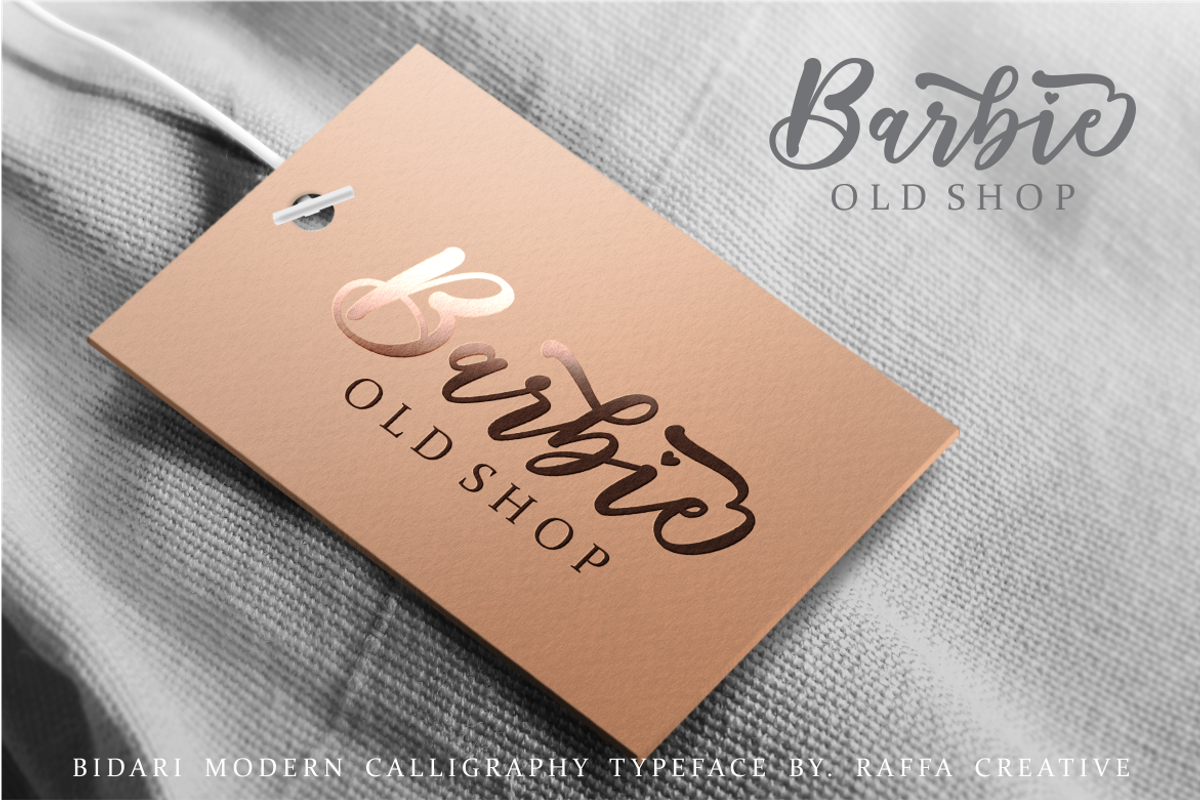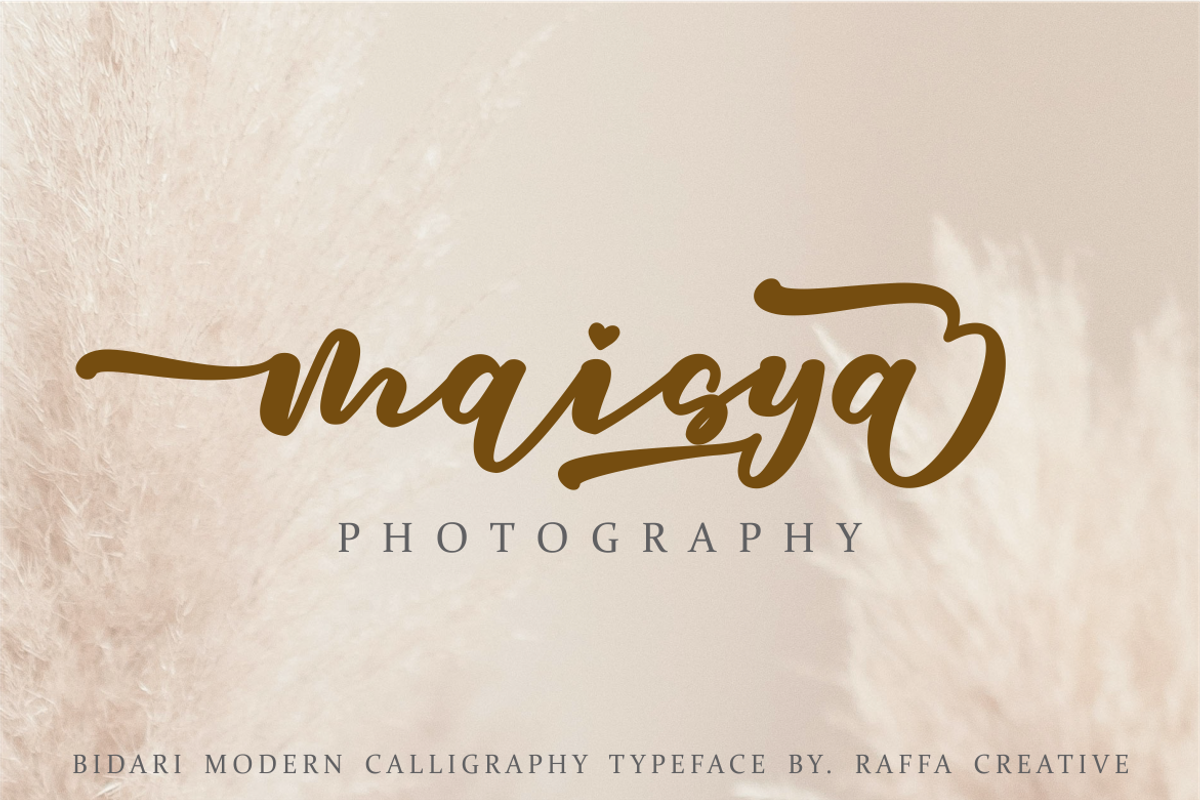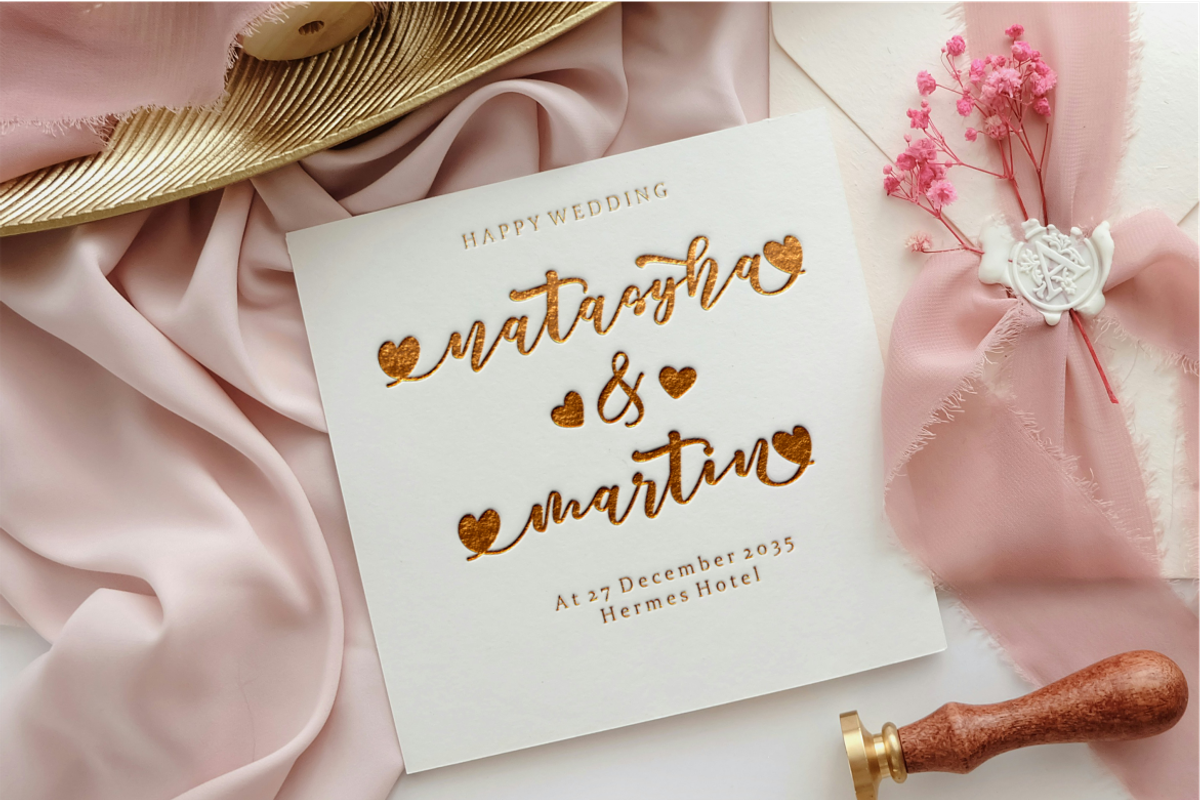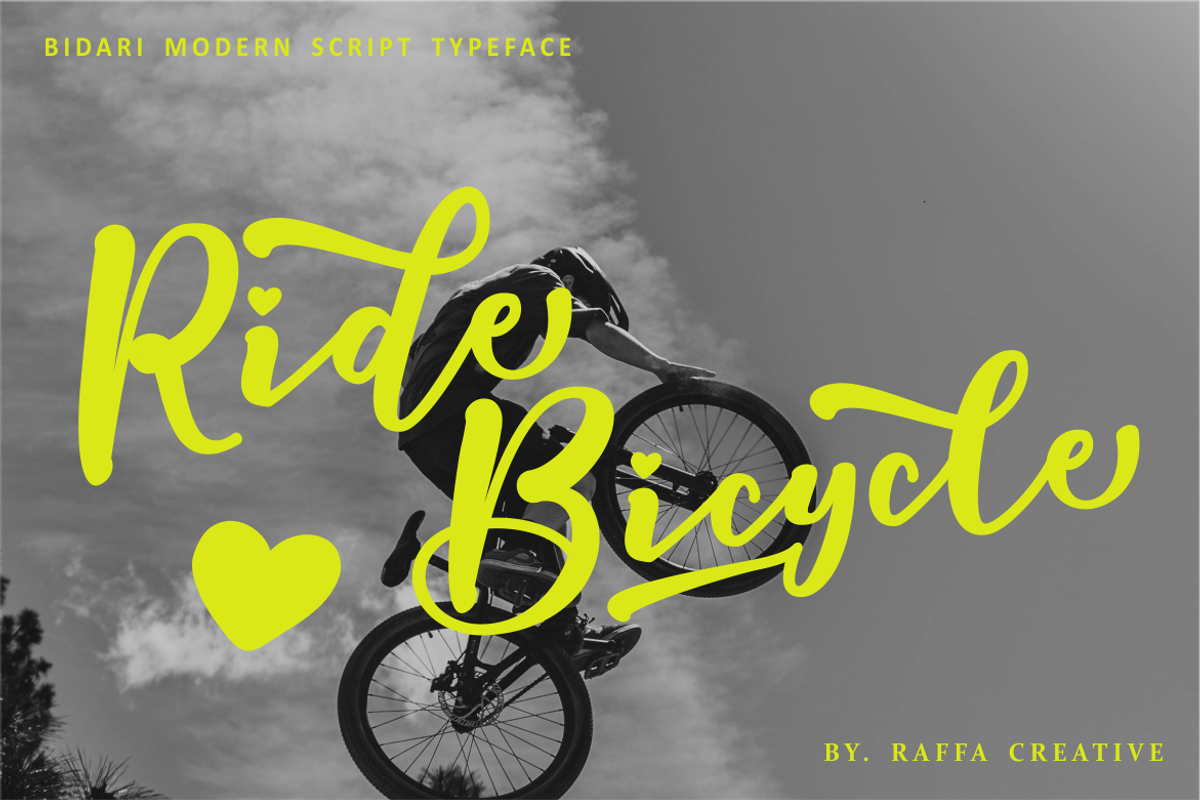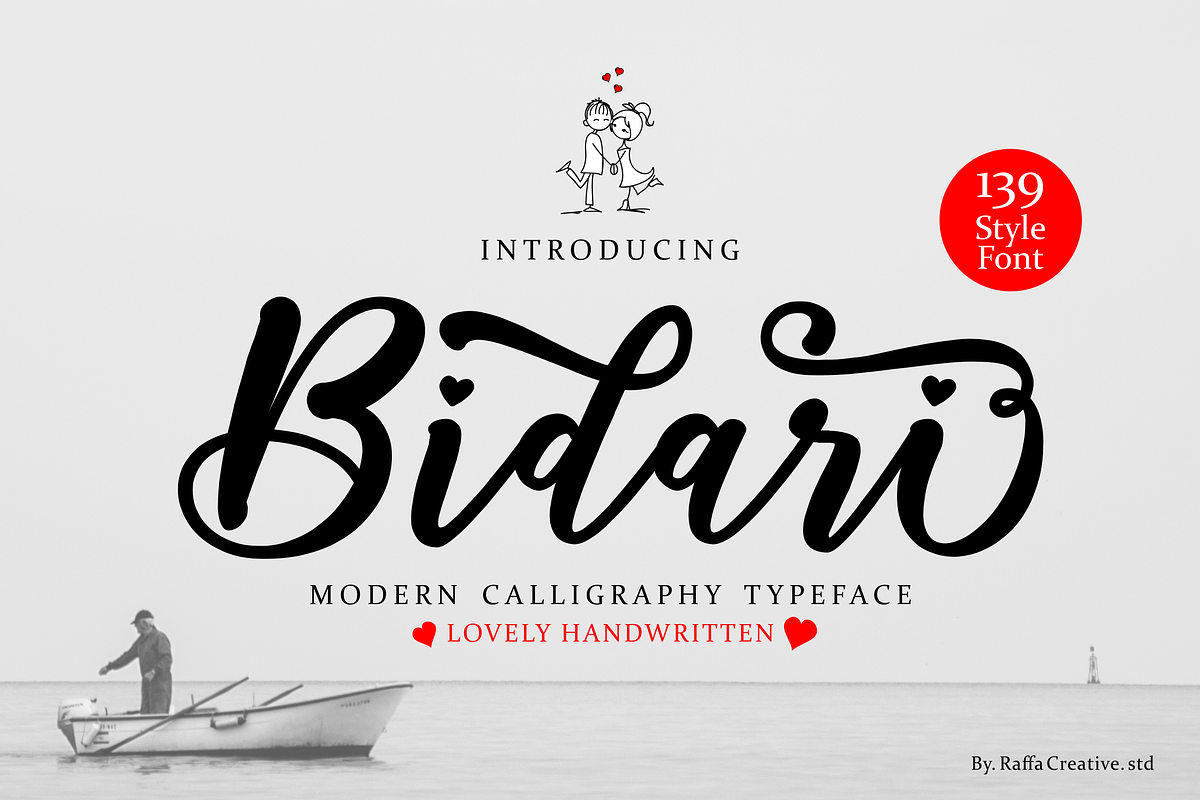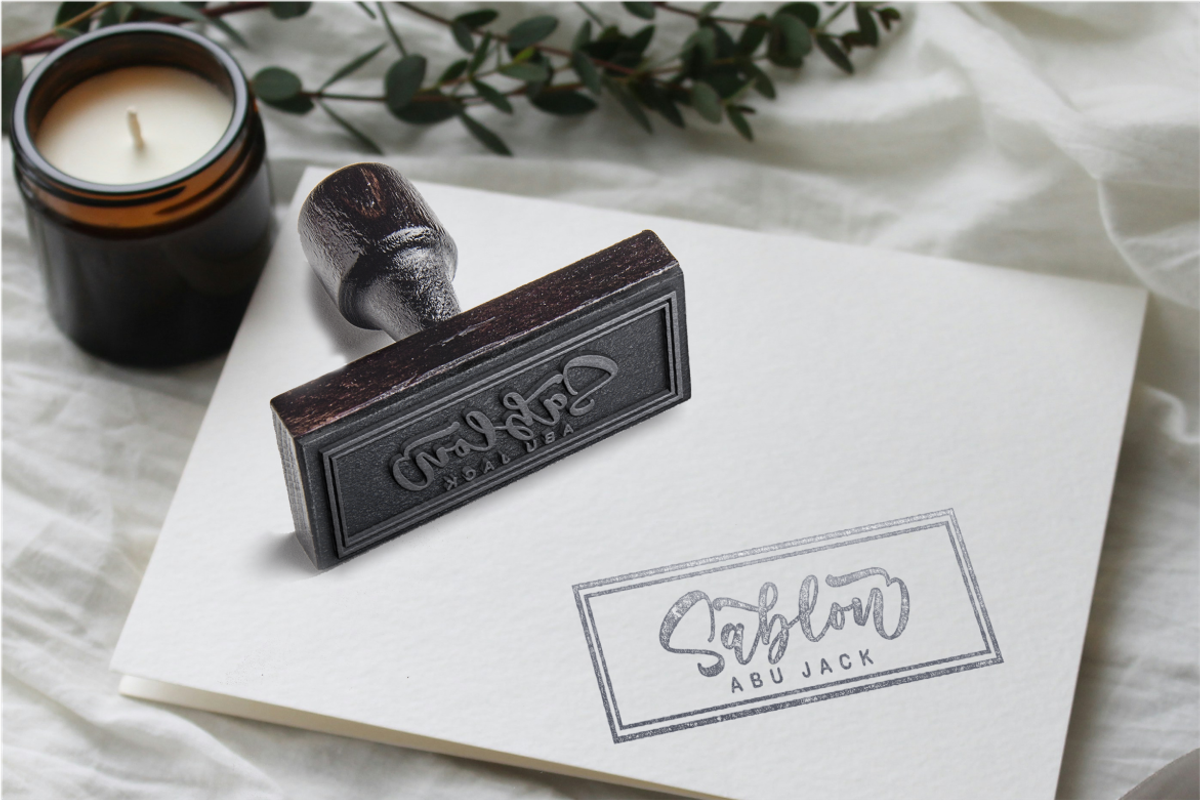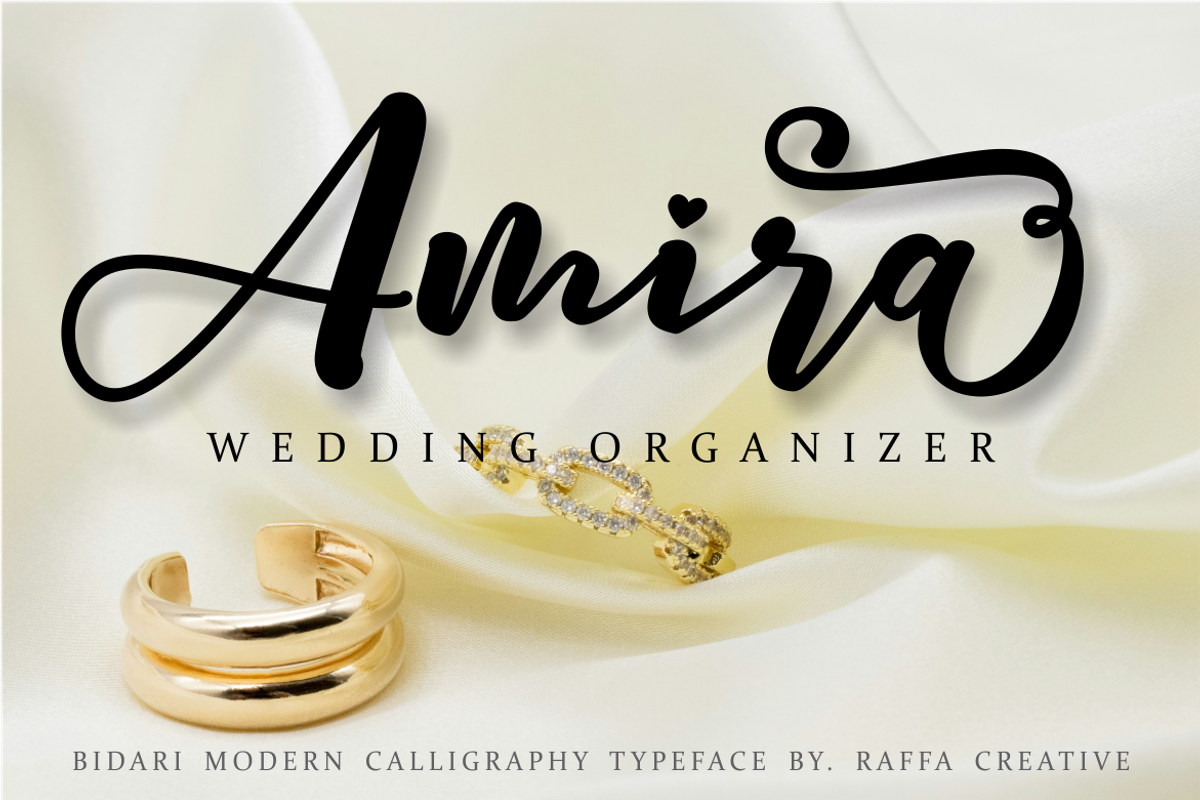
Bidari Script
Bidari is a modern calligraphy typeface with a romantic handwritten style, ideal for elegant and expressive design work. Featuring 139 stylistic alternates and heart-themed swashes, it offers high customization for logos, wedding stationery, branding, and social media content. Its fluid letterforms and graceful curves bring a personal, heartfelt charm to every layout. Compatible with standard design software and includes multilingual support.